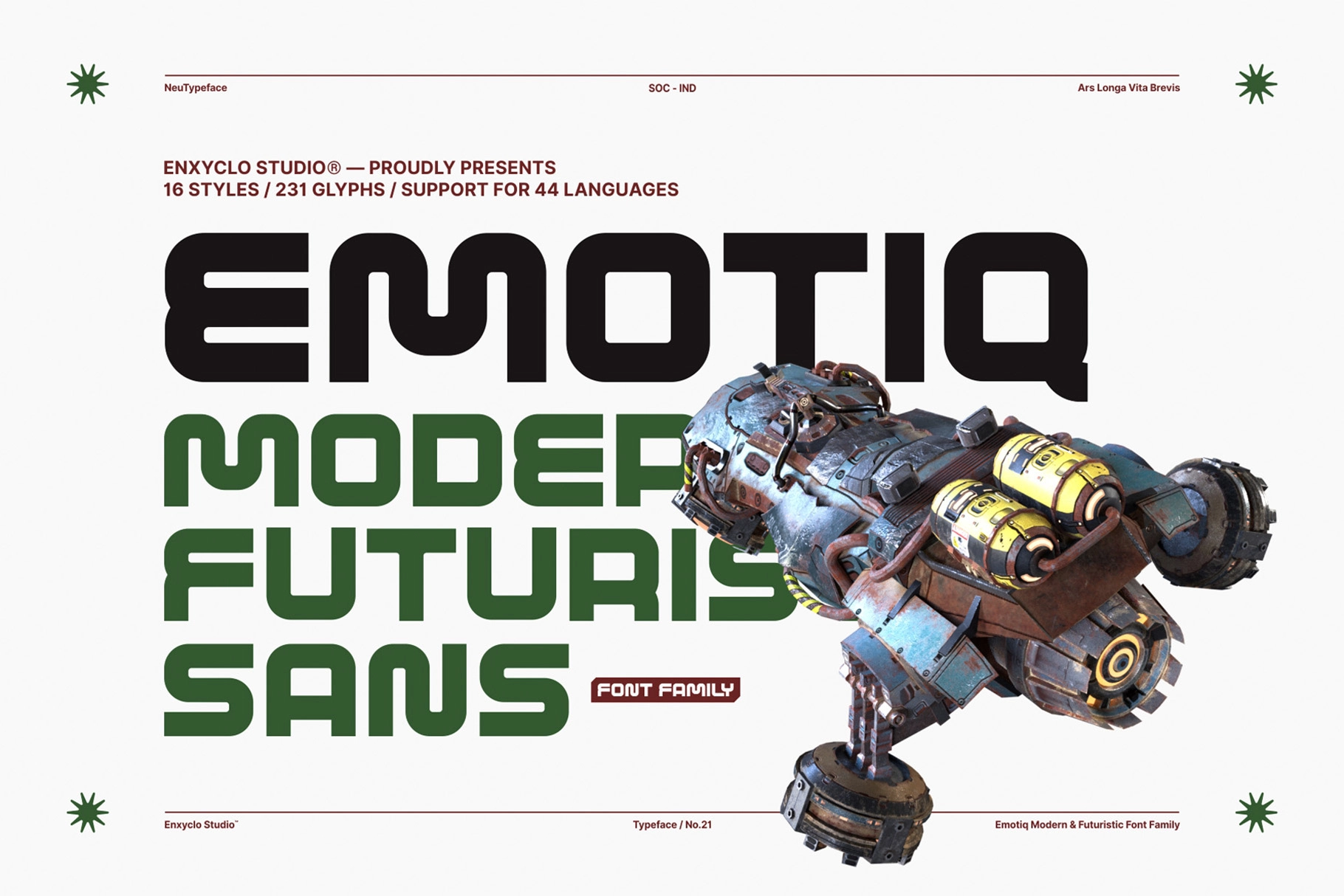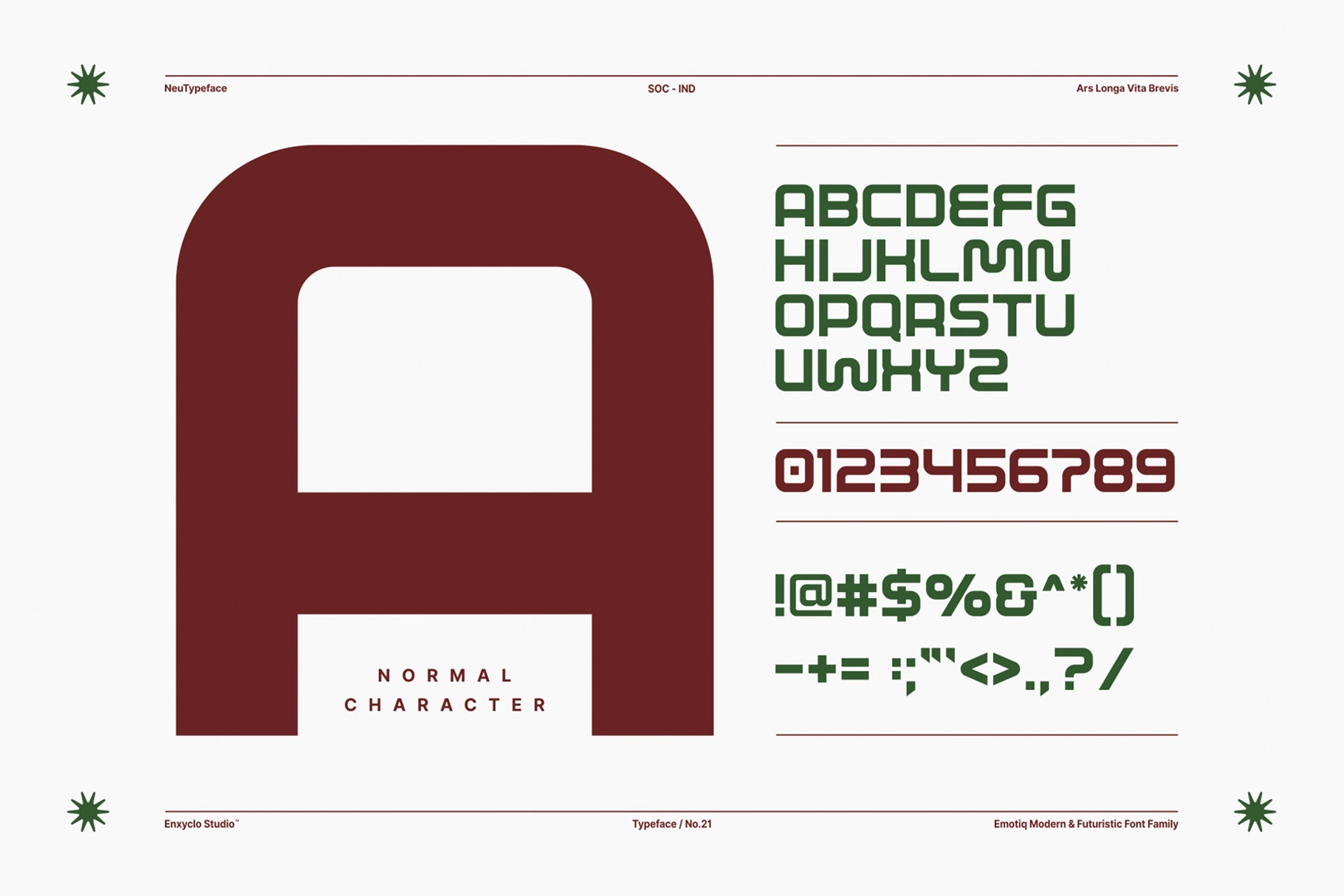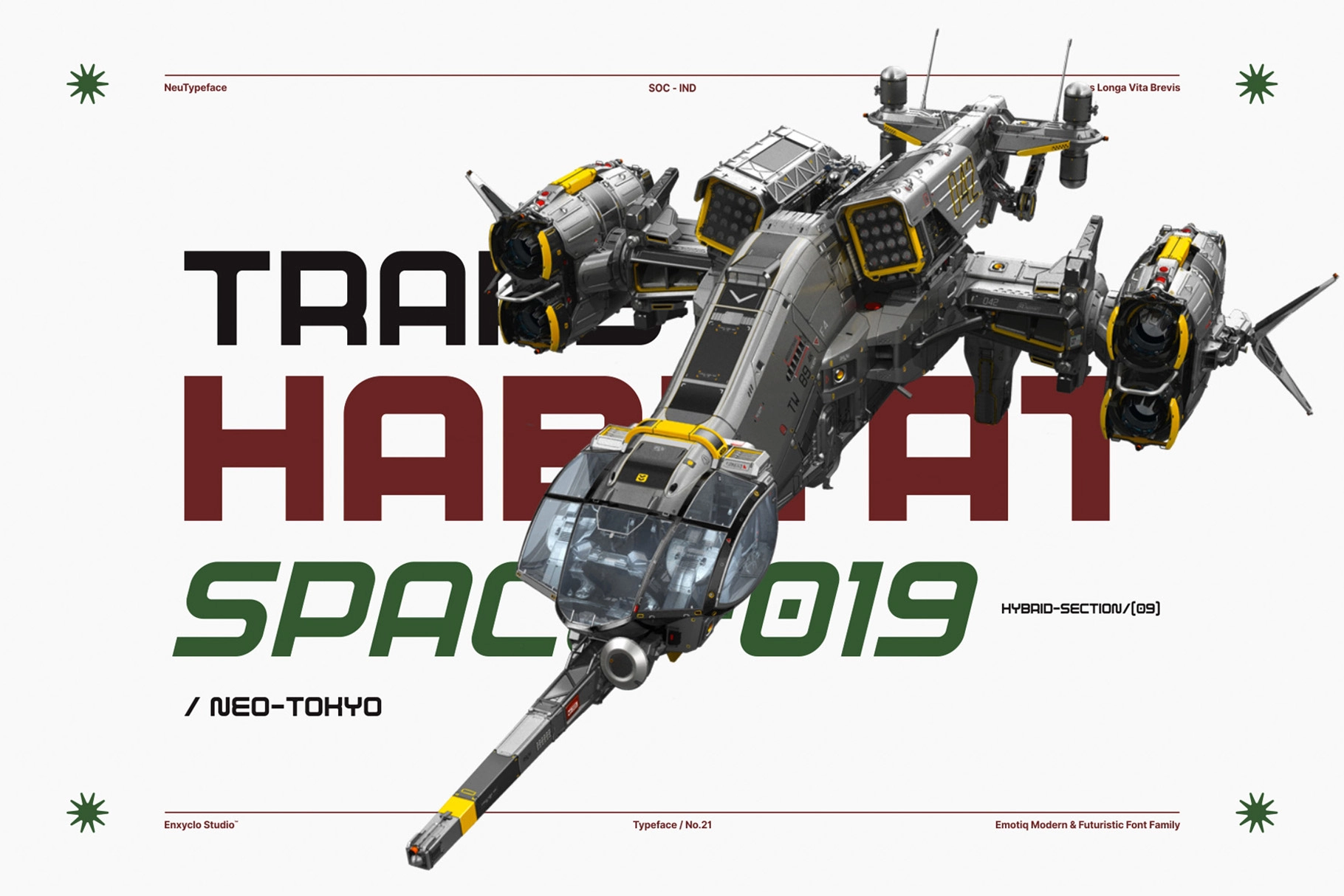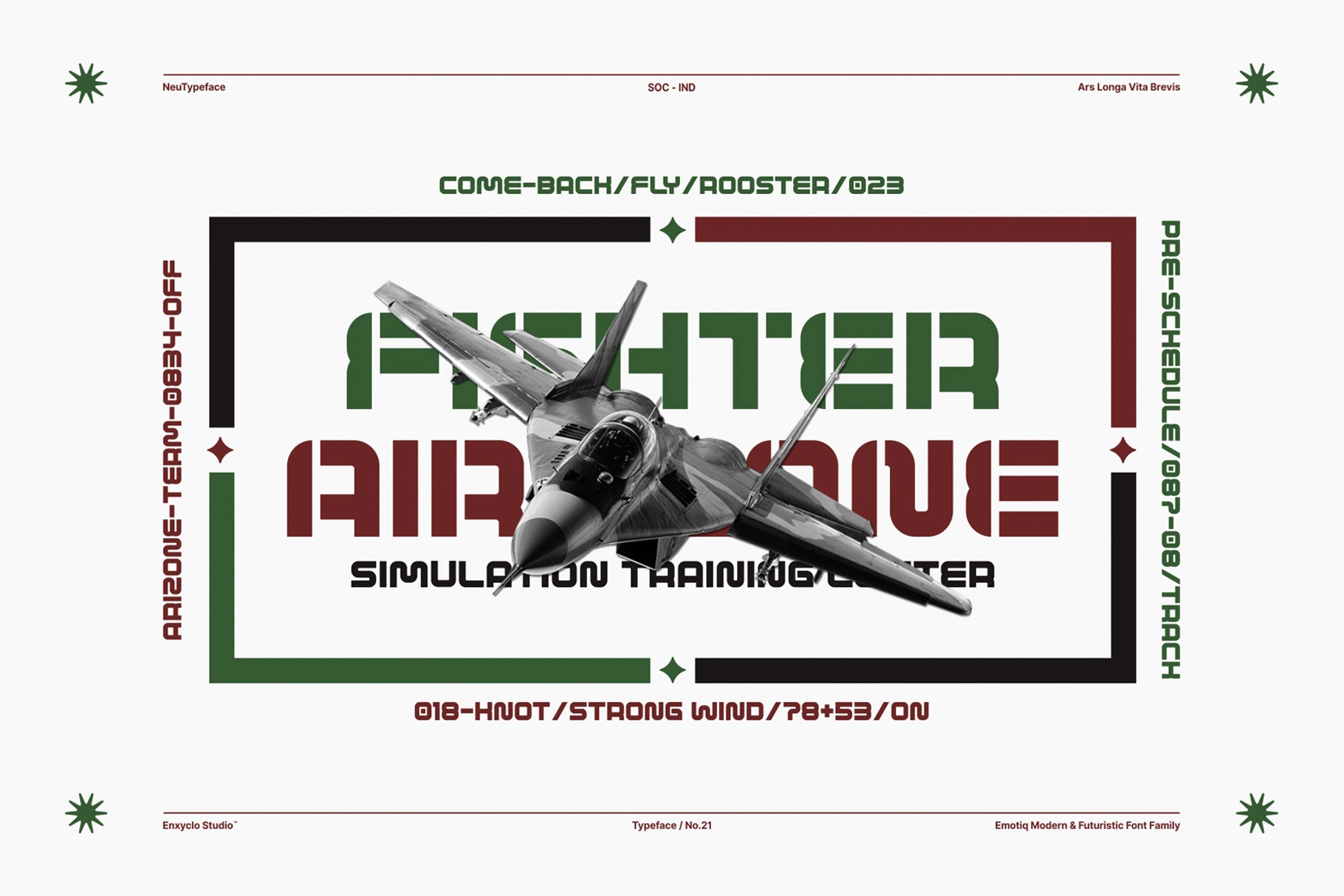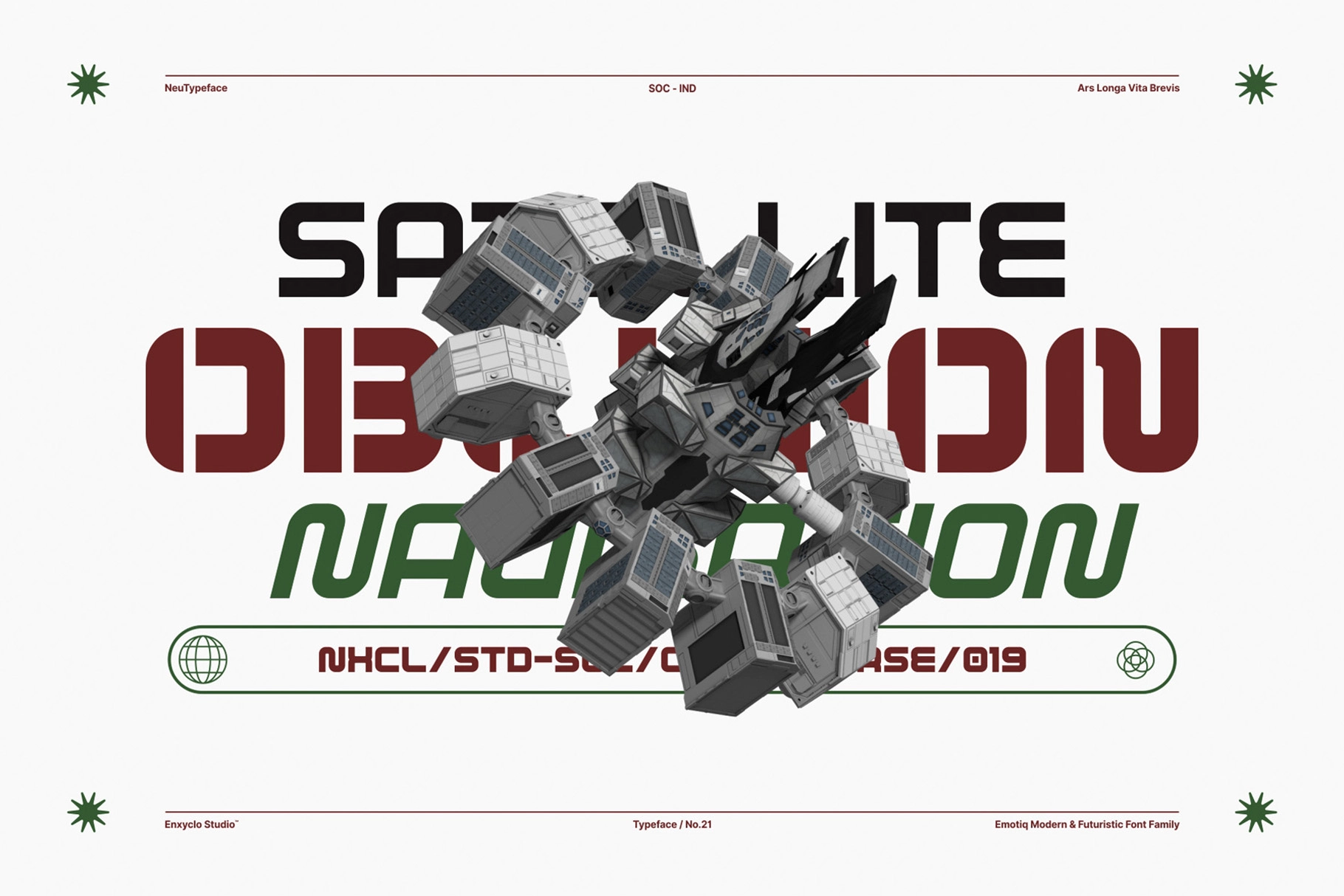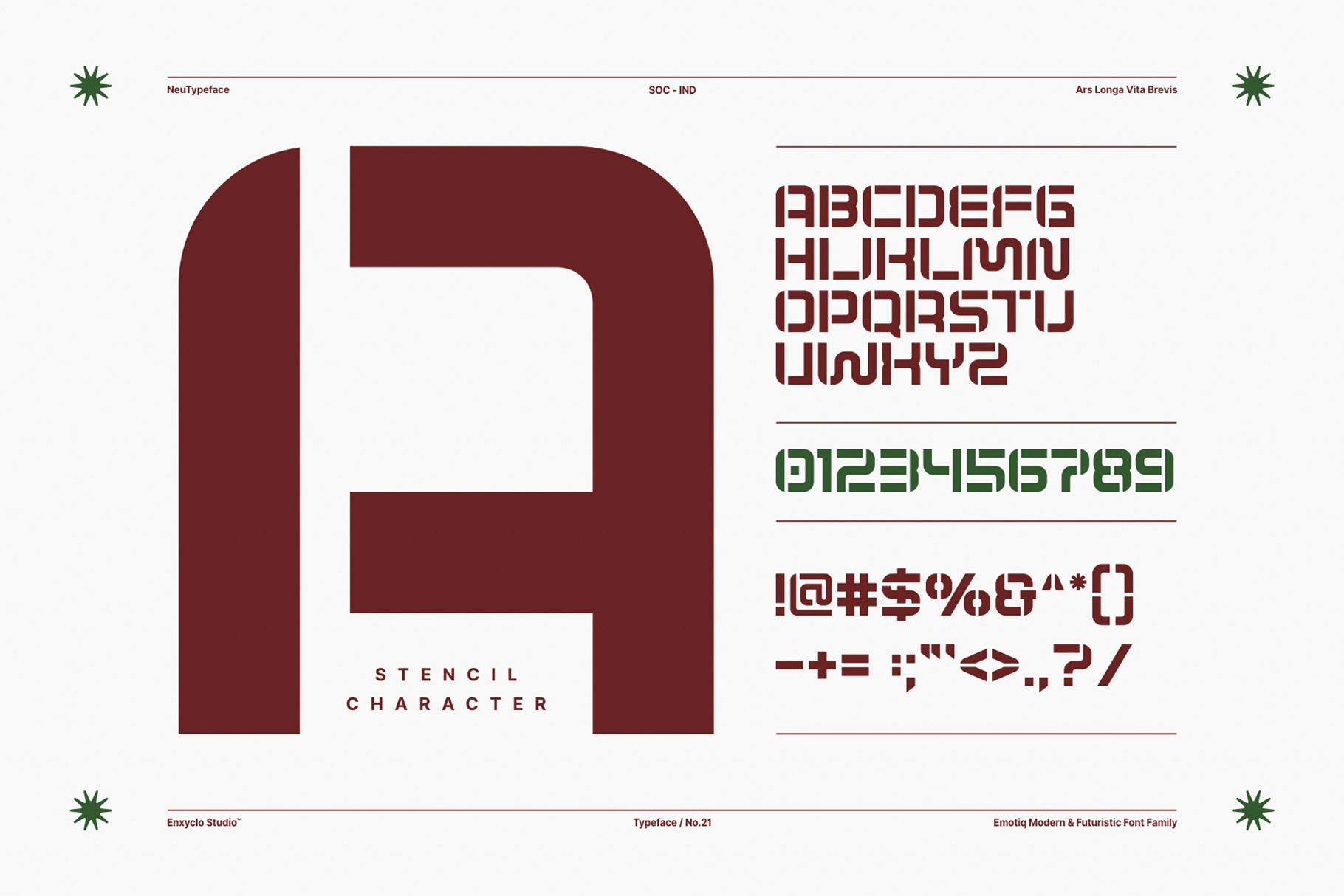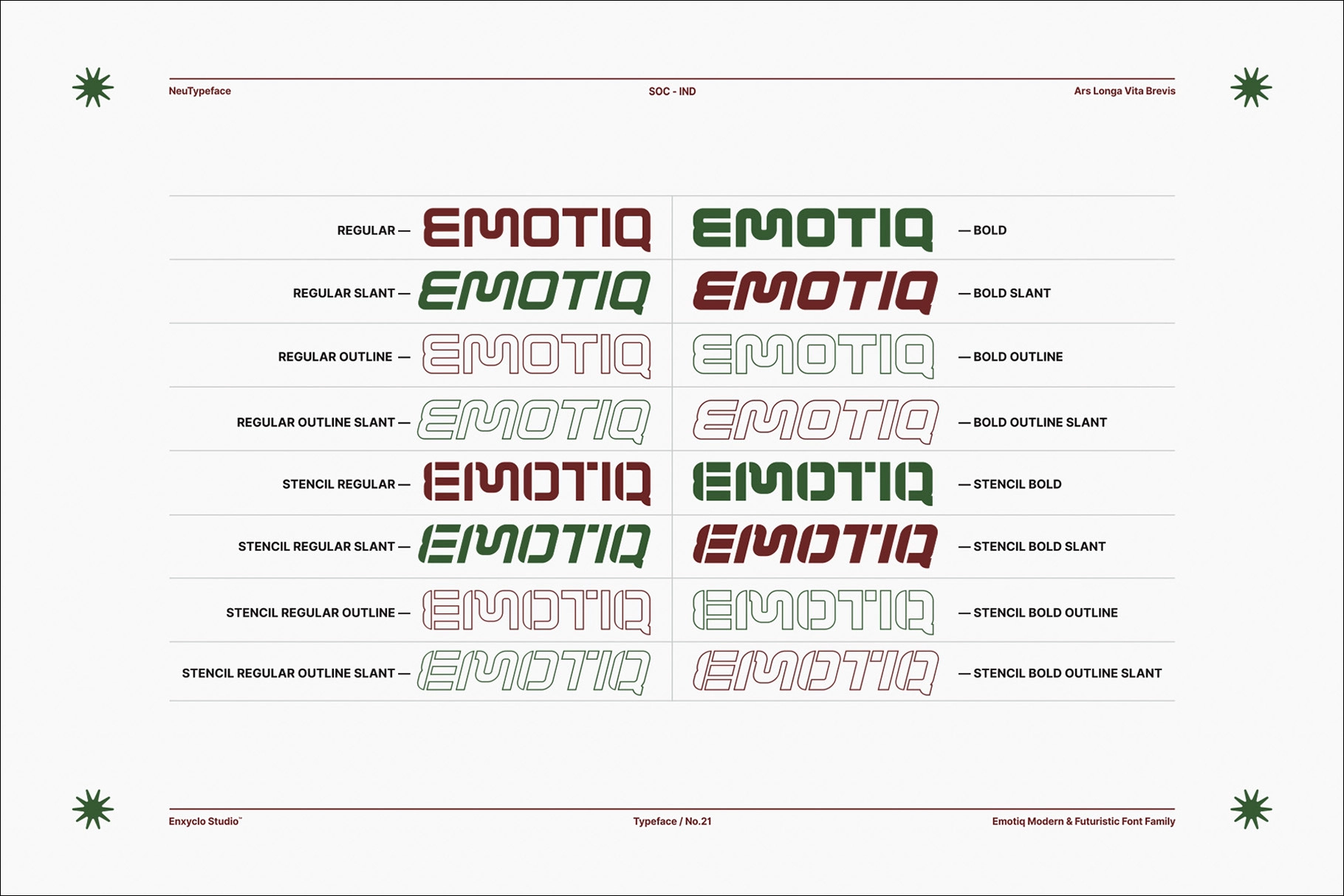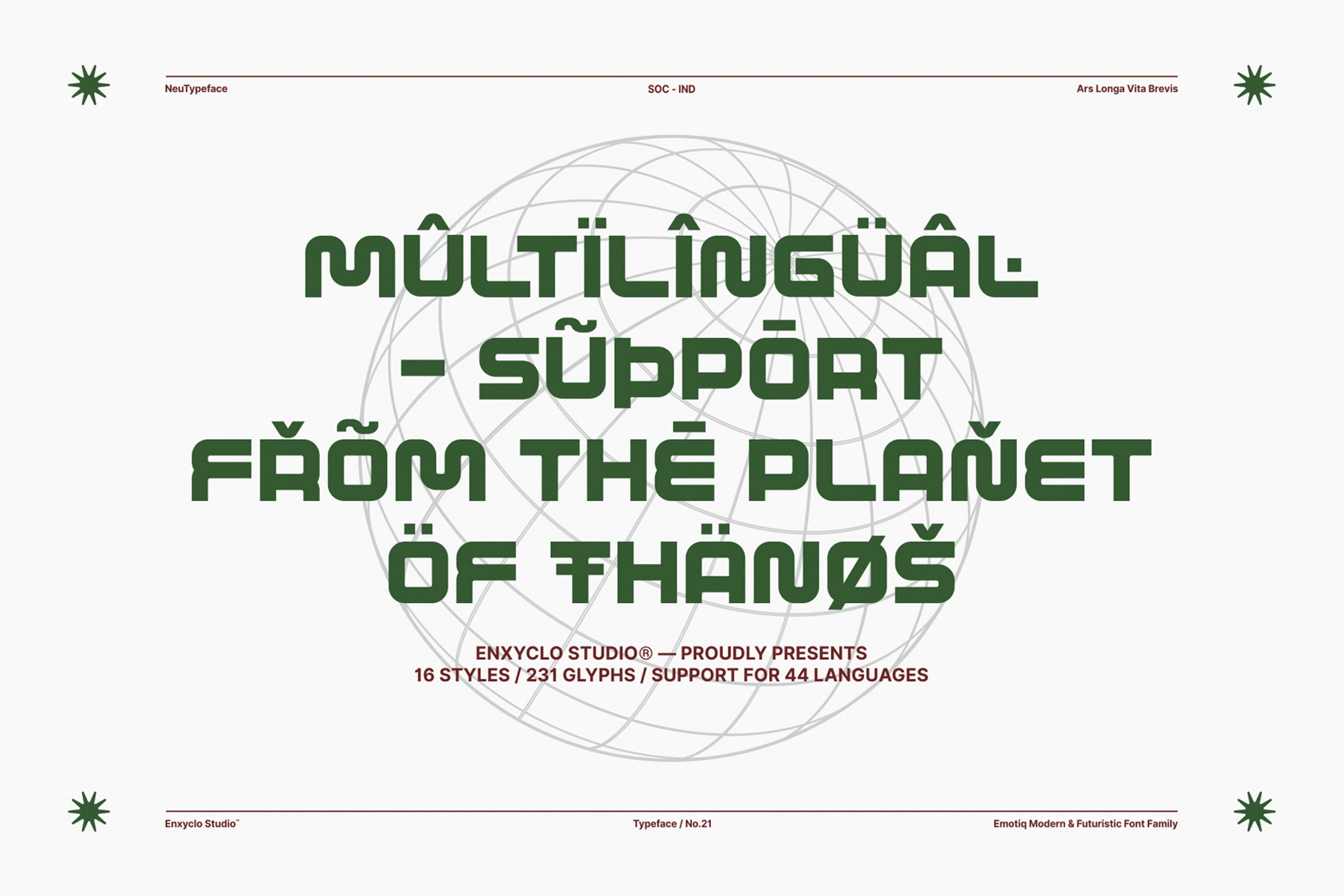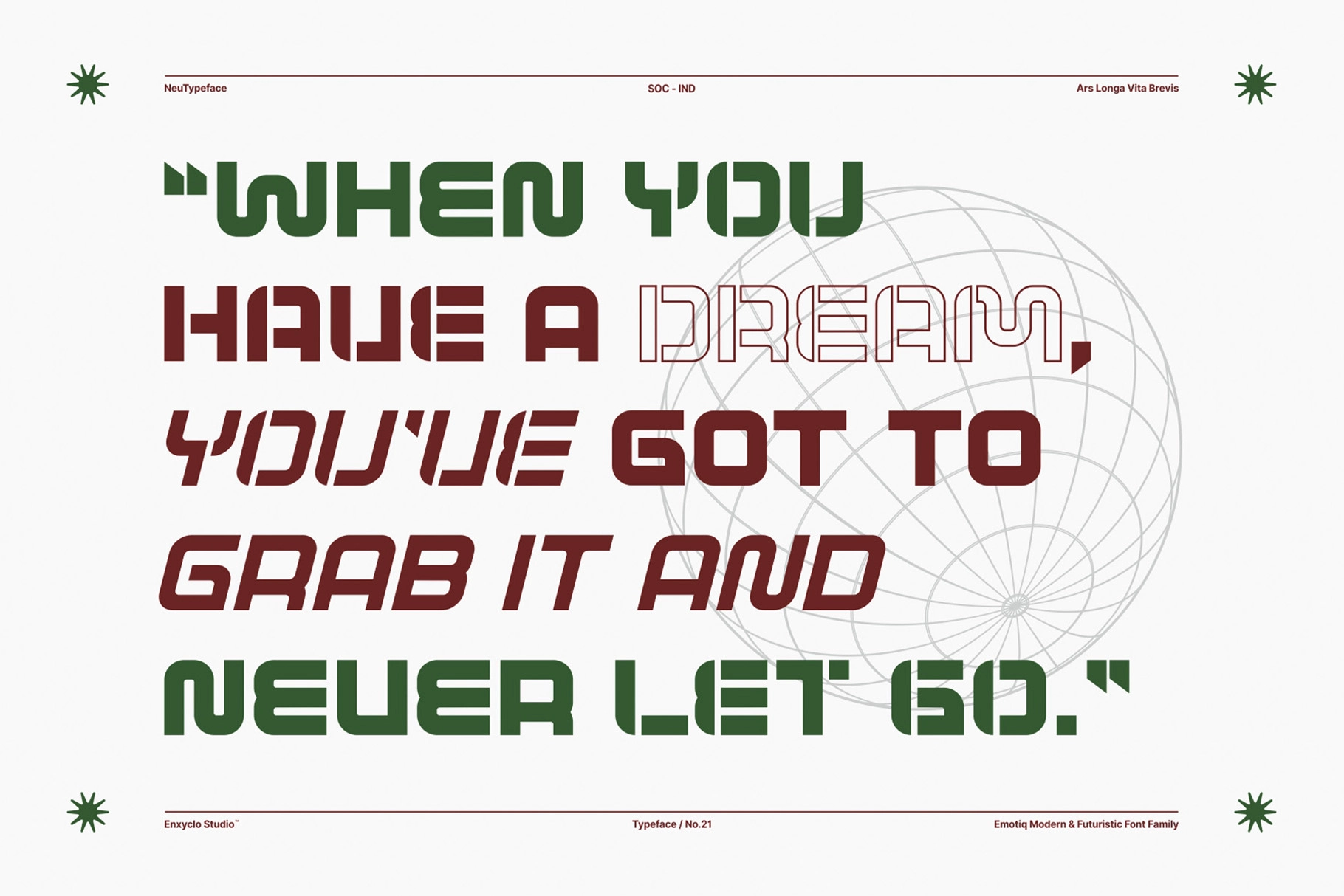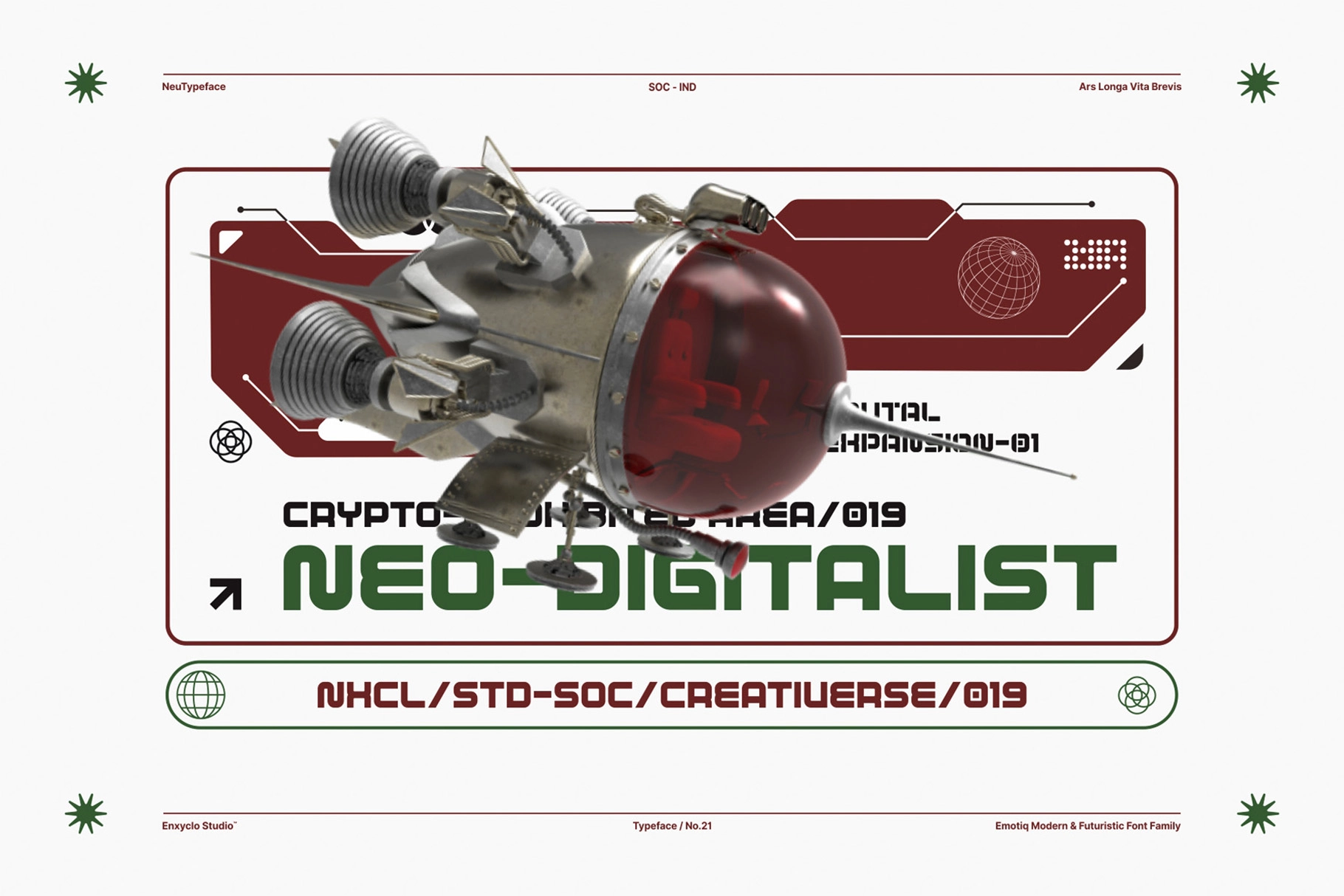
EMOTIQ – Futuristic Sans Serif Font Family
EMOTIQ has the crisp geometry of late-1960s space-age graphics and sci-fi paperback covers, with rounded corners and engineered cuts that give it a sleek, orbital cadence. It suits posters, game interfaces, album covers, tech branding, editorial headlines, packaging, and motion titles where a sharp futuristic accent feels precise rather than cold
- 16 font styles with multiple variations
- Regular, Slant, Outline & Stencil versions
- Bold and outline combinations
- 231 glyphs per style
- Uppercase, numerals & punctuation